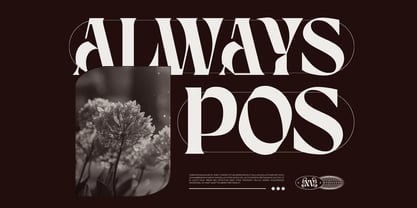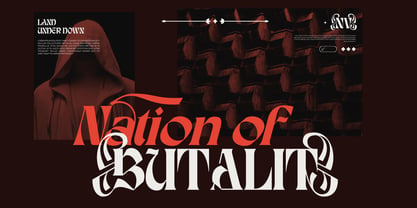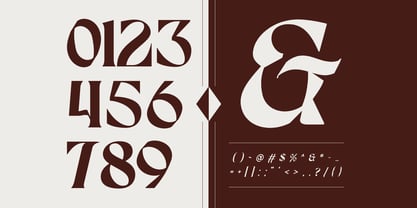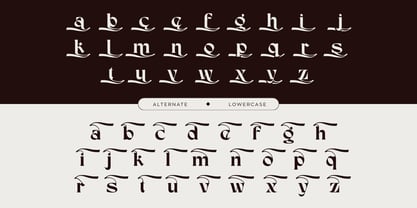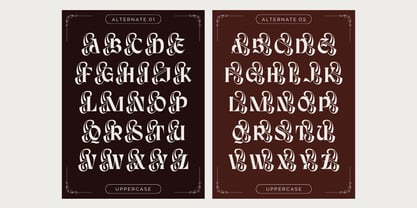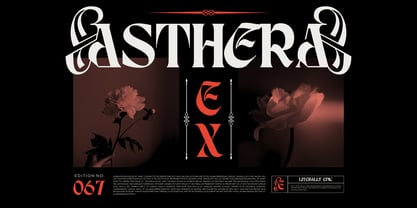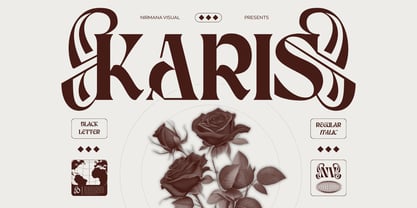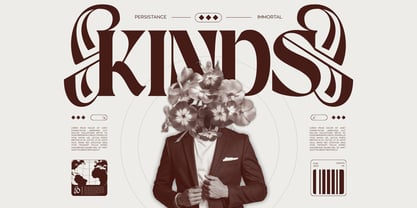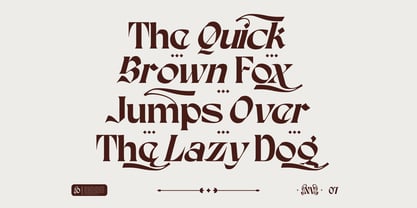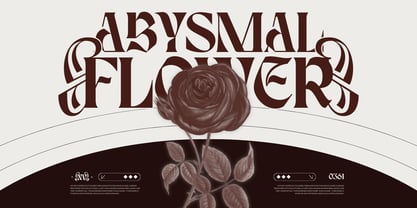
Karis Blackletter
by Nirmana Visual
The Karis Blackletter Font Family was designed by Sigit Dwipa and published by Nirmana Visual. Karis Blackletter contains 2 styles and family package options. More about this family
Karis Blackletter is a bold, expressive typeface inspired by traditional blackletter calligraphy. Its sharp angles and dramatic strokes create a strong, historic character while maintaining modern clarity. Perfect for branding, logos, packaging, posters, and editorial design, Karis Blackletter delivers a distinctive, authoritative look that stands out with elegance and timeless style.